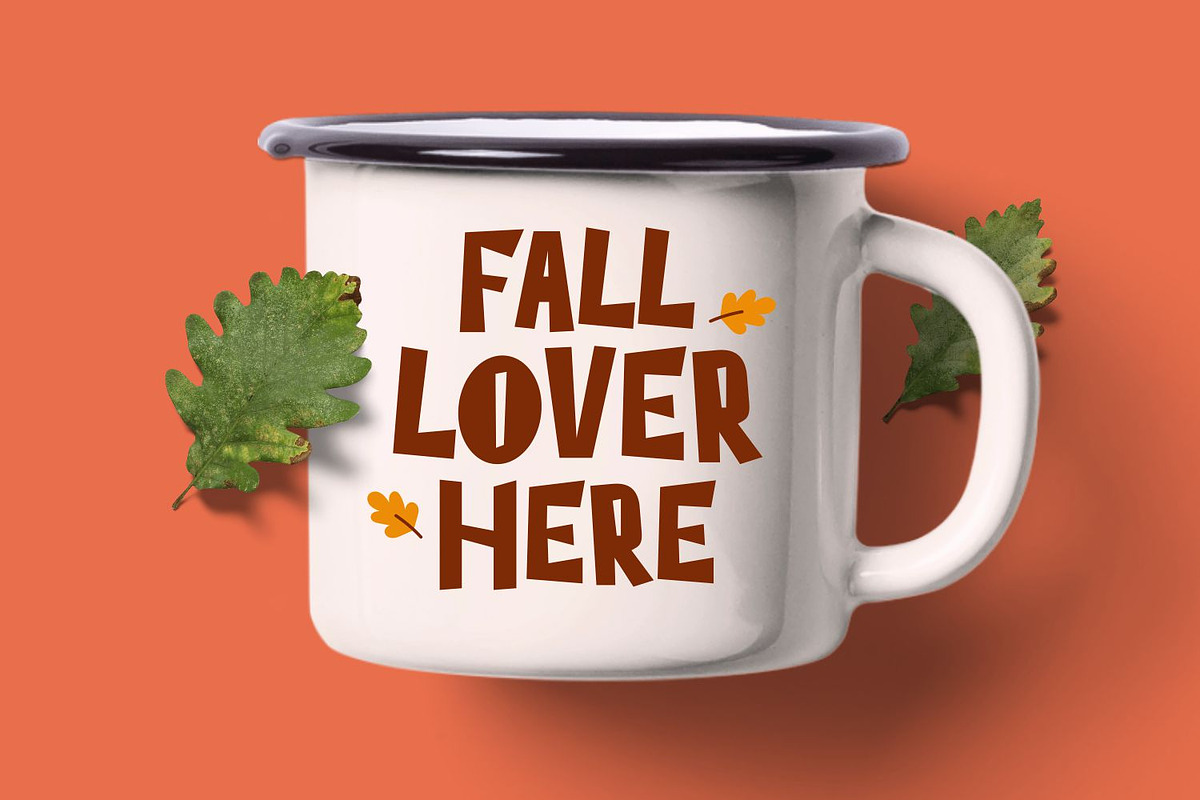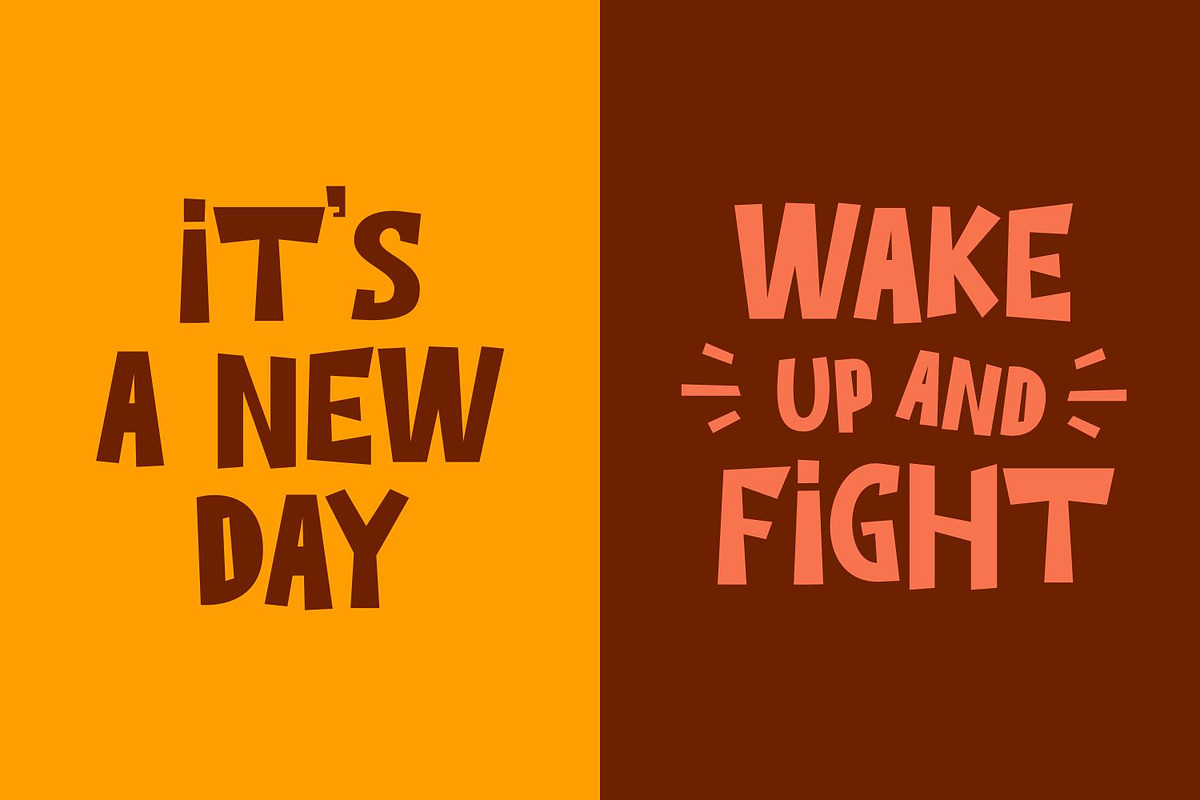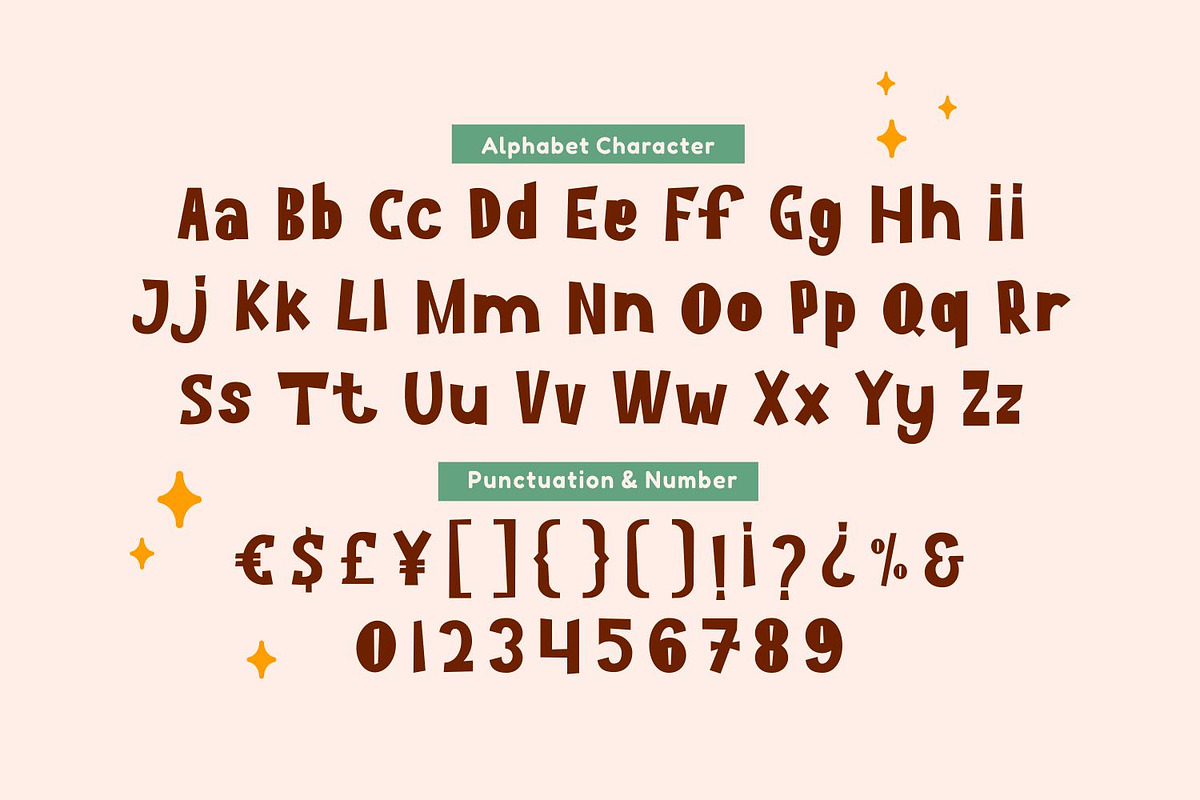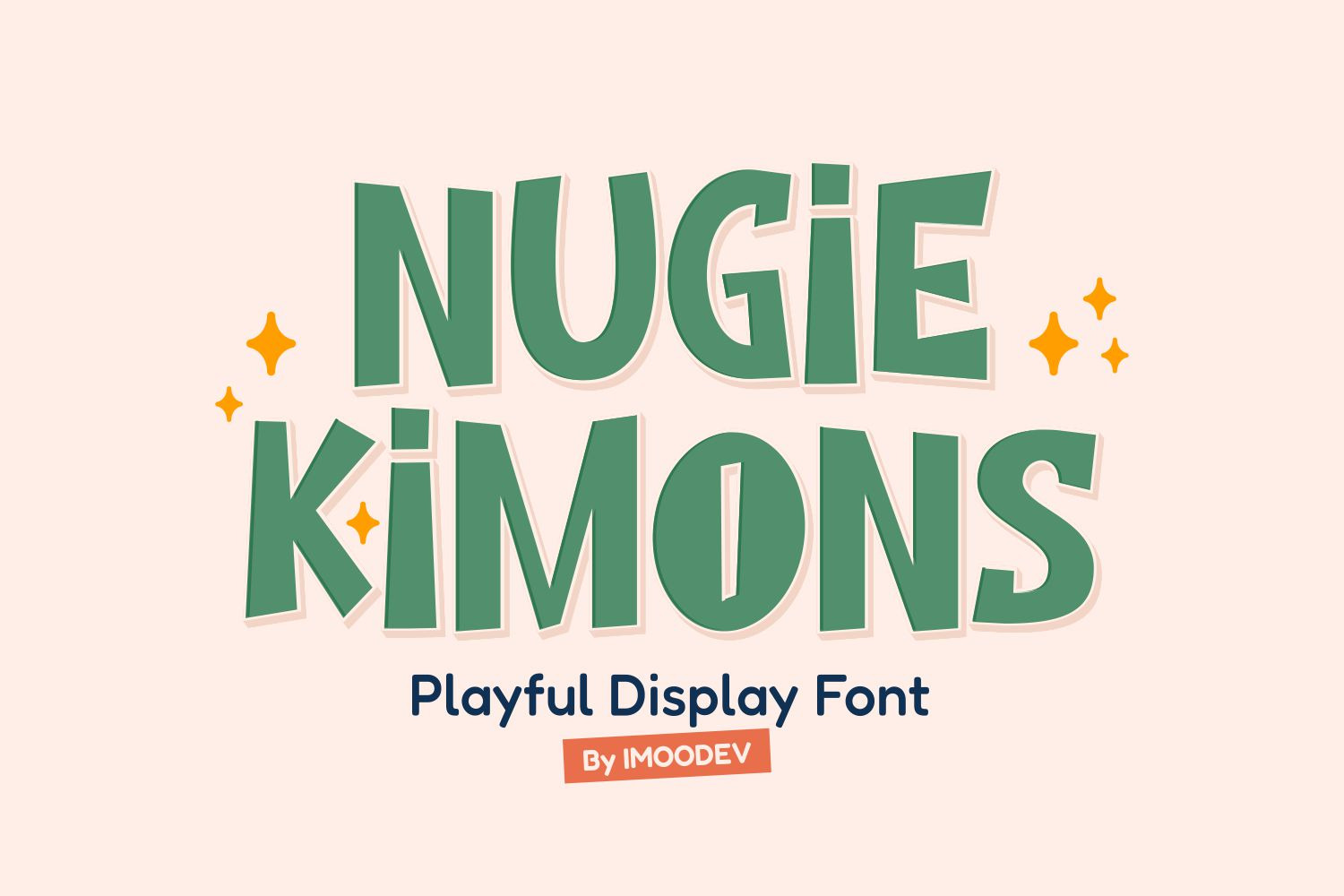
Nugie Kimons - Cute Font
Nugie Kimons is a playful display typeface with a distinctive hand cut, wavy baseline that gives every word a fun, energetic bounce. The letterforms are thick and condensed with slightly uneven edges, and a mix of tall condensed caps with a friendly, chunky lowercase set. It works beautifully for autumn/fall branding, mugs, apparel, sale banners, greeting cards, kids' content, and any design needing a warm, retro boho, hand-lettered feel.
Punctuation, Number, and Symbol